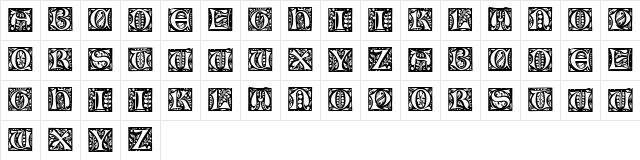
Gotische Initialen Regular
Copyright: Copyright (c) Typographer Mediengestaltung, 2002. All rights reserved. Initialen mit Buchstabenformen aus der Gotik. Entstanden um 1850. Digitalisiert durch Dieter Steffmann, Kreuztal.
Designer: Dieter Steffmann
Design Context for Gotische Initialen
Gotische Initialen is a composed and adaptable typeface that performs quietly and consistently across a wide range of design contexts.